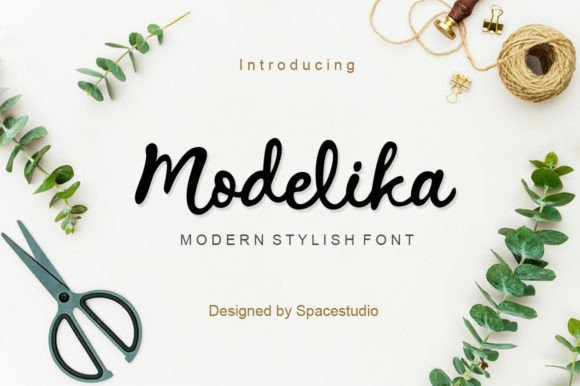
Slip into the world of graceful aesthetics with Modelika Font, a captivating calligraphy font that dances upon the canvas of modern design. Inspired by the beauty of handwritten notes, Modelika Font captures the essence of delicate strokes and sweeping curves, inviting you on a journey of artistic expression.
Each letter in the Modelika Font family is a testament to the precision and artistry of its creation. Its distinct characteristics, harmoniously balanced, make Modelika Font a masterpiece of digital calligraphy. Experience the magic of Modelika Font and let your imagination soar.
Immerse yourself in the versatility of Modelika Font, a font that adapts seamlessly to your creative endeavors. Whether you seek to craft captivating logos, enhance the allure of your website, or add a touch of elegance to your social media posts, Modelika Font rises to the occasion. Its fluidity and grace transcend conventional boundaries, empowering you to create designs that speak volumes.
Indulge in the beauty of Modelika Font and watch as your designs transform into works of art. Its delicate strokes and elegant curves bring a touch of sophistication to any project. Allow Modelika Font to elevate your creativity and leave a lasting impression on your audience.
Embrace the magic of Modelika Font and unlock a world of possibilities. With its exceptional versatility and captivating aesthetics, this font becomes an indispensable tool in your creative arsenal. Open the doors to endless design opportunities and unveil the true potential of your imagination.